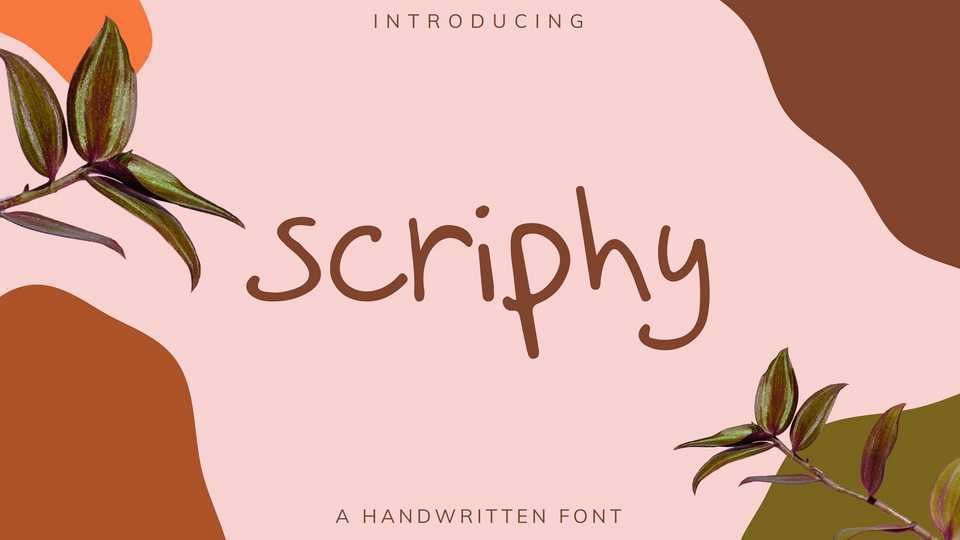
Download Scriphy font, a cute handwritten typeface. Scriphy font is an excellent choice for books, crafts, labels, greeting cards, invitations, and other projects that need a personal touch.
Designer: Ala M. Lockhart